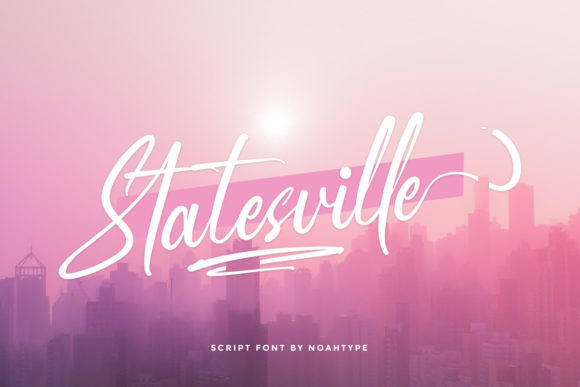
**Statesville Font: The Epitome of Elegance and Charm**
In a world clamoring for authenticity, the Statesville Font stands tall, a glorious testament to the beauty of handcrafted elegance. Inspired by the allure of sweeping script and the grace of heartfelt messages, this font is not merely a collection of letters; it's an expression of individuality, a whisper of sophistication, and a visual symphony that captivates the senses. Let Statesville elevate your creative projects, transforming them into masterpieces that leave an indelible impression.
**Unleash Your Inner Artist with Statesville**
With Statesville, every word you type becomes a brushstroke, painting a picture of emotion and intent. Create wedding invitations that exude timeless romance, thank-you cards imbued with heartfelt gratitude, and quotes that resonate with profound meaning. Design logos and business cards that speak volumes about your brand's personality, and let your creativity soar as you explore endless possibilities. Statesville's versatility knows no bounds, adapting seamlessly to any project, any vision, any dream.
**Embrace the Simplicity, Revel in the Elegance**
Statesville is a font that embraces simplicity, yet exudes elegance. Its clean lines and effortless flow create a visual harmony that's both captivating and serene. Whether you're crafting personal notes, designing social media posts, or creating marketing materials, Statesville adds a touch of sophistication that elevates your message beyond the ordinary. Let your words dance across the page, carried by the graceful curves and delicate strokes of this extraordinary font.
**Experience the Power of Seamless Integration**